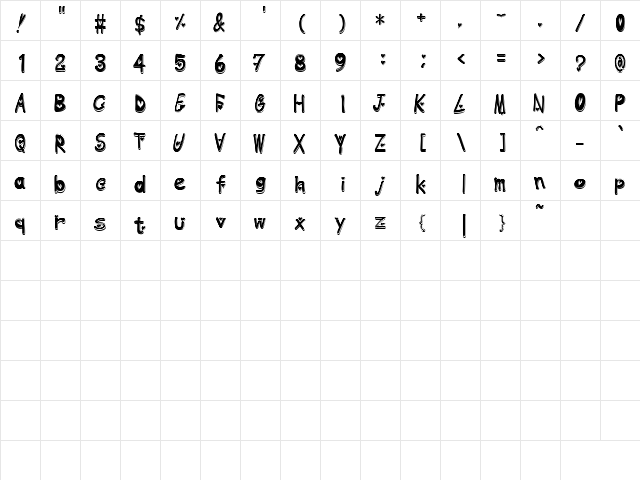
heart emboss Regular Font Preview
heart emboss Regular
heart emboss Regular Font Details
Design Context for heart emboss Typeface
heart emboss is a composed and adaptable typeface that performs quietly and consistently across a wide range of design contexts.